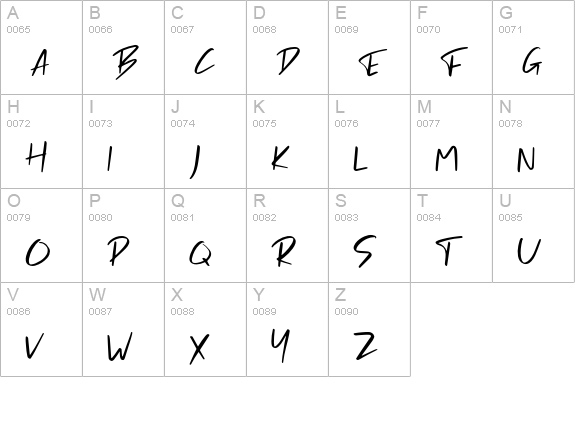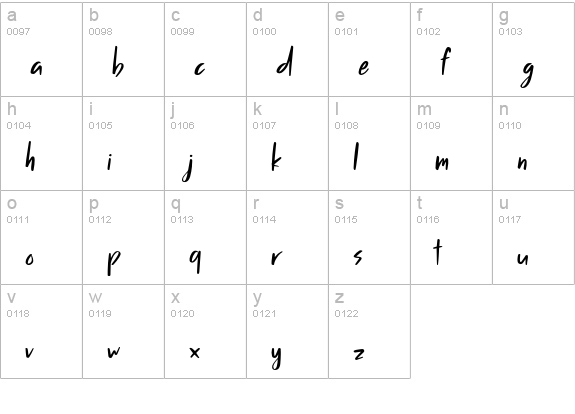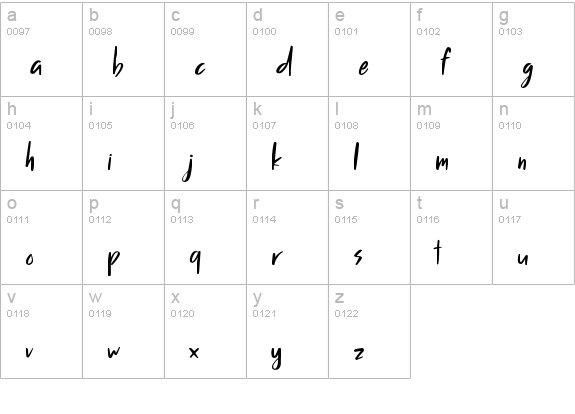
Introducing Bravely font - a stunning and versatile typeface that exudes elegance and sophistication. With its sleek lines and modern aesthetic, Bravely is the perfect choice for a wide range of design projects, from branding to editorial content. This font effortlessly combines a sense of style with readability, making it ideal for both print and digital applications.